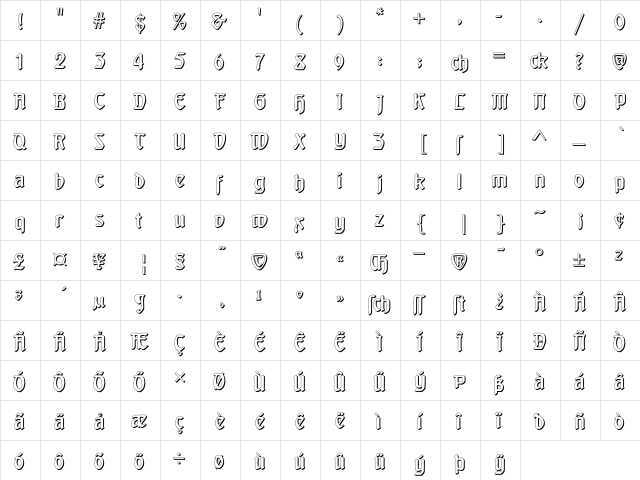
Behrensschrift Shadow Regular
| Designer | Peter Behrens (digitized by Dieter Steffmann) |
Design Context for Behrensschrift Shadow Typeface
Behrensschrift Shadow is built around its visual character rather than neutral utility — its distinctive forms are designed to make an impression at display sizes.
Font Pairing: Pair with a clean neutral sans-serif for body copy to let Behrensschrift Shadow's character lead without overwhelming the composition.
Pro Tip: Use Behrensschrift Shadow exclusively at display sizes — it was designed to be seen, not read at length. Let a neutral companion handle body copy.